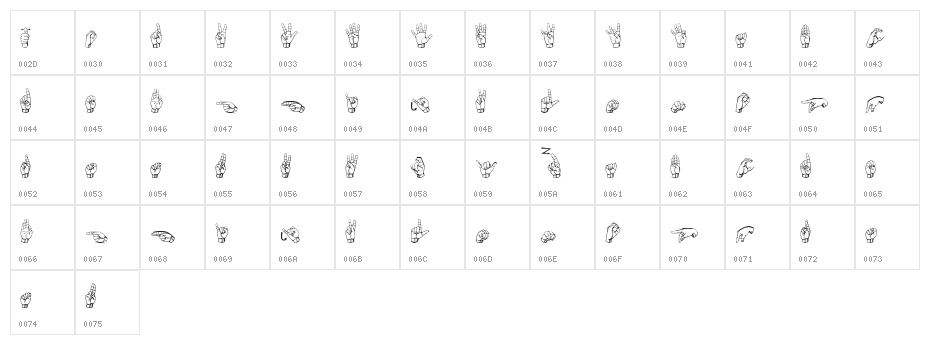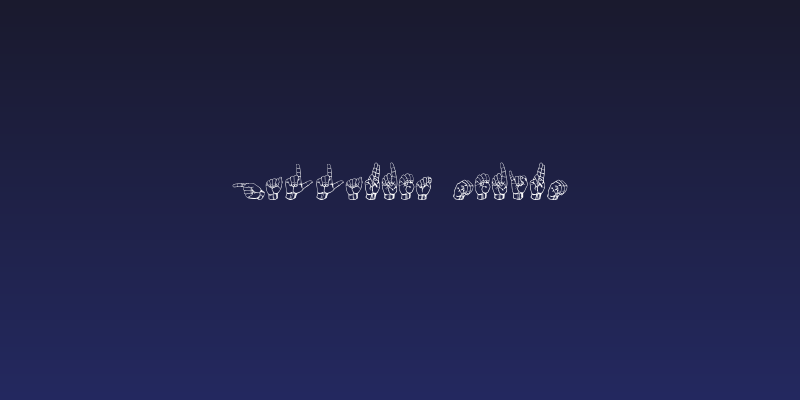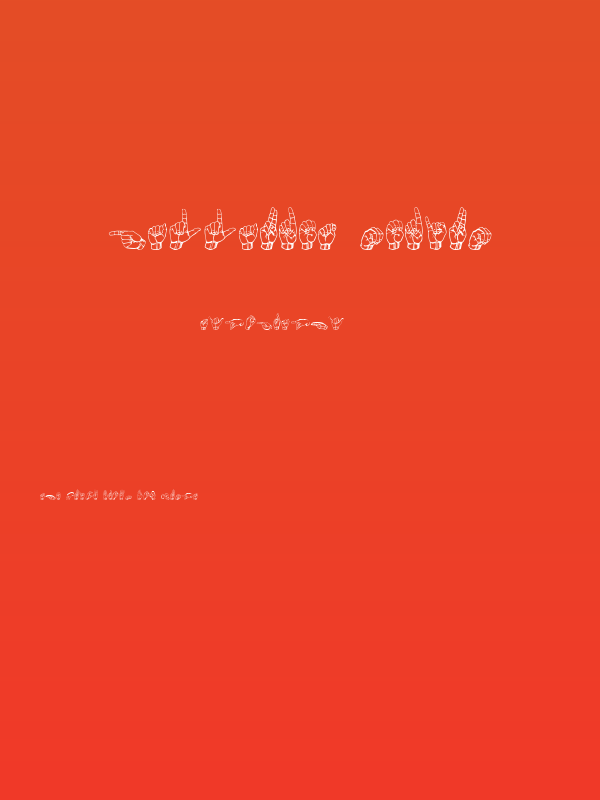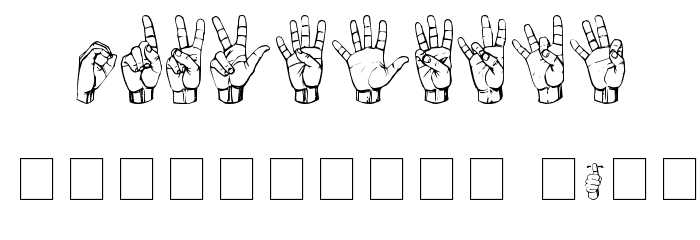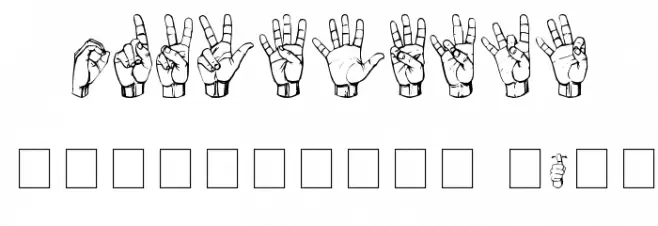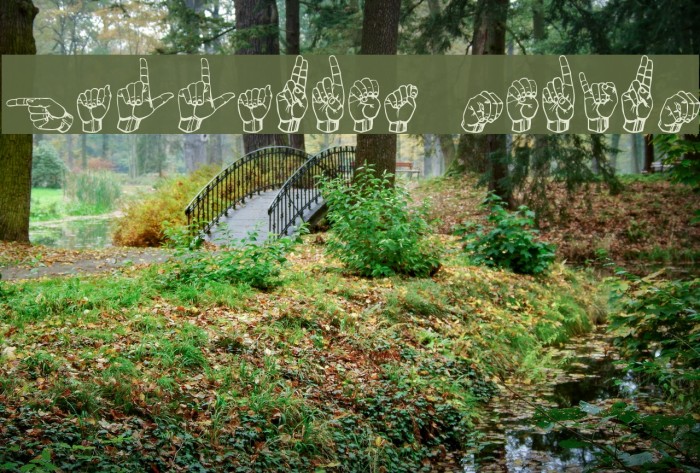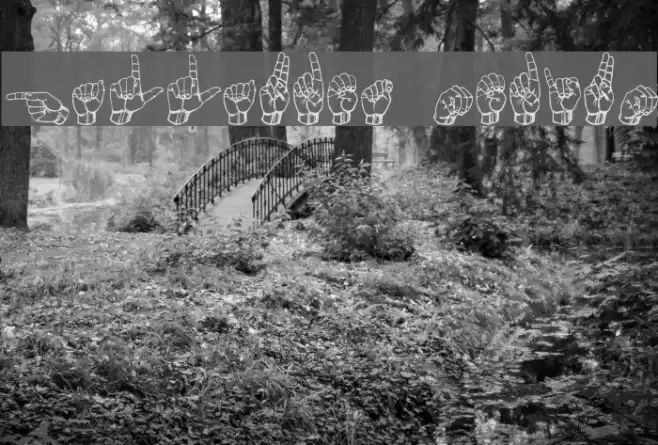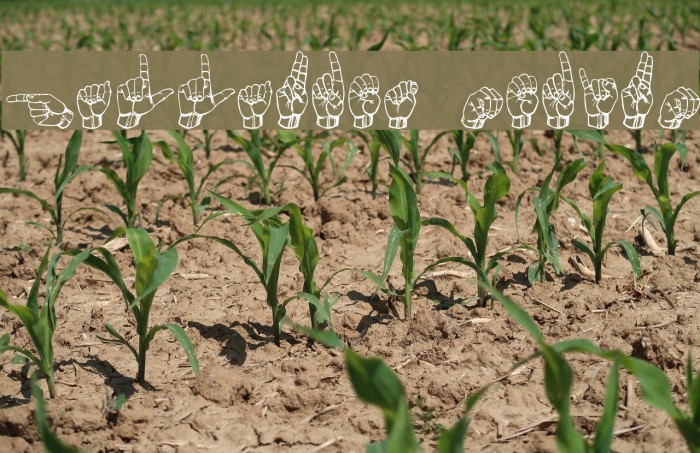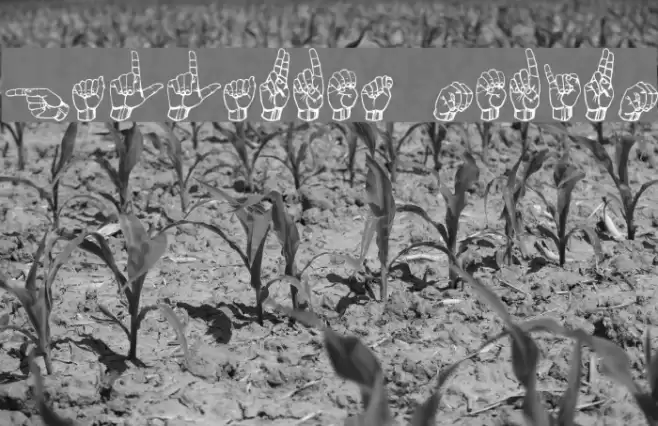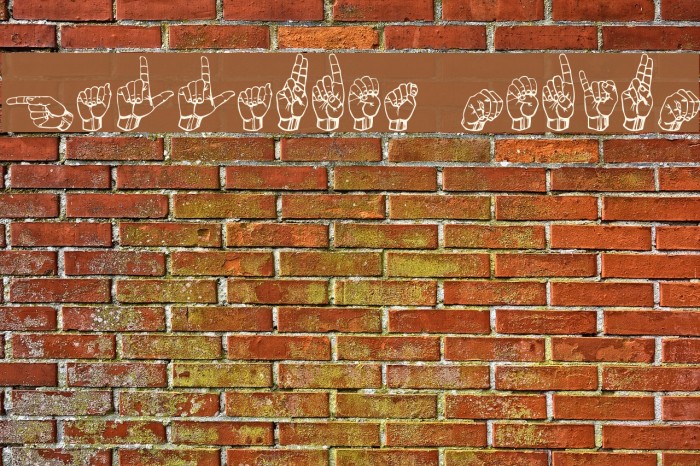
Gallaudet Medium Font
| Область применения | Logos, Educational materials, Awareness campaigns |
| Рекомендуемые проекты | Ideal for educational materials, awareness campaigns, and inclusive design projects. |